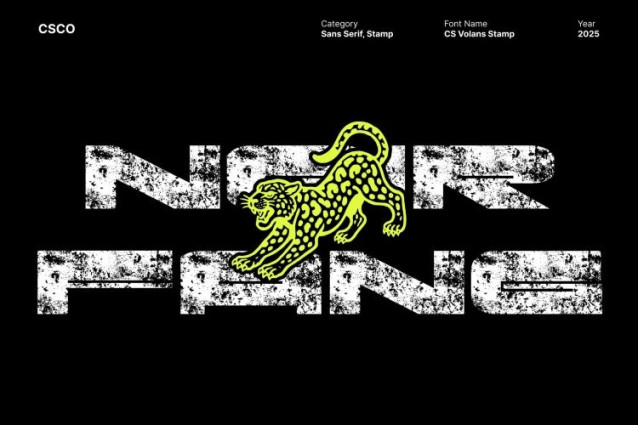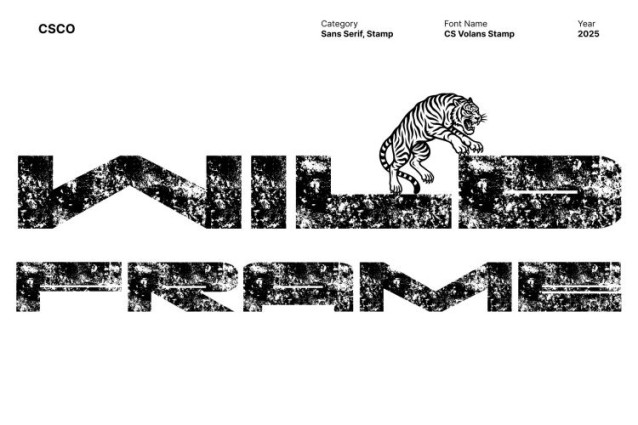
CS Volans Stamp Font
CS Volans Stamp Font is a bold and striking sans serif font that fuses modern techno aesthetics with a vintage, handcrafted finish. Its clean geometric structure radiates contemporary energy, while the subtle stamp texture adds a tactile, worn effect that brings depth and authenticity.
Modern Structure with Vintage Character
Each letter in this font is built with sharp edges and balanced proportions, embodying the sleekness of modern design. The stamp-style texture, however, softens its precision, giving it a rugged and organic touch reminiscent of traditional printmaking. This contrast creates a visually dynamic font that feels both futuristic and timeless.
Perfect for Branding and Bold Visuals
Ideal for branding, logos, vintage design projects, and poster layouts, this font stands out with strength and personality. Its textured appearance adds instant character to headlines and wordmarks, making it an excellent choice for designers who want to convey creativity, confidence, and authenticity in their work.
Dynamic, Textured, and Unforgettable
This font combines the innovation of modern typography with the soul of vintage craftsmanship. Its techno-inspired structure and bold stamp texture create a perfect balance between refinement and grit. Use this font to make your designs feel powerful, expressive, and full of character where modern energy meets handcrafted style.